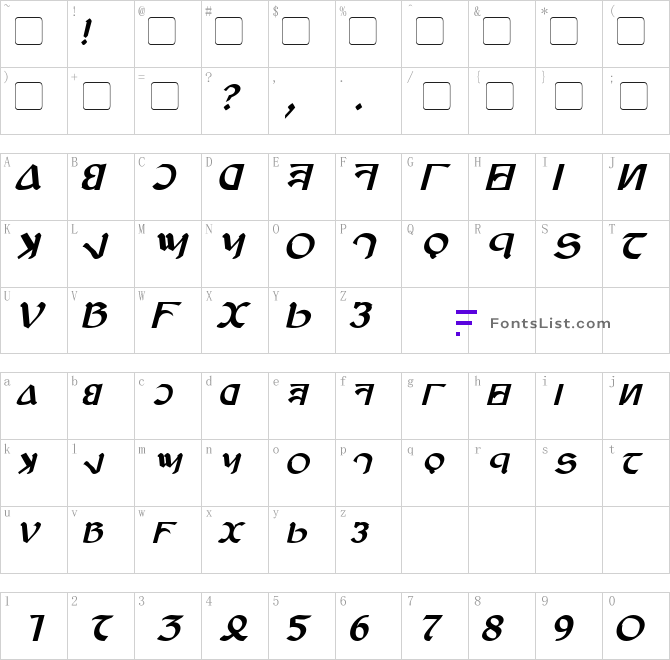
Anayanka-Bold-Italic.otf is a very beautiful artistic font, Anayanka-Bold-Italic.otf is widely used in the design and printing of various books and pictures,Anayanka-Bold-Italic.otf has a strong visual impact,Anayanka-Bold-Italic.otf is a commonly used font in newspapers, magazines and books, and is used in posters, e-commerce Poster design, store design, logo design, font design and other fields.Anayanka-Bold-Italic.